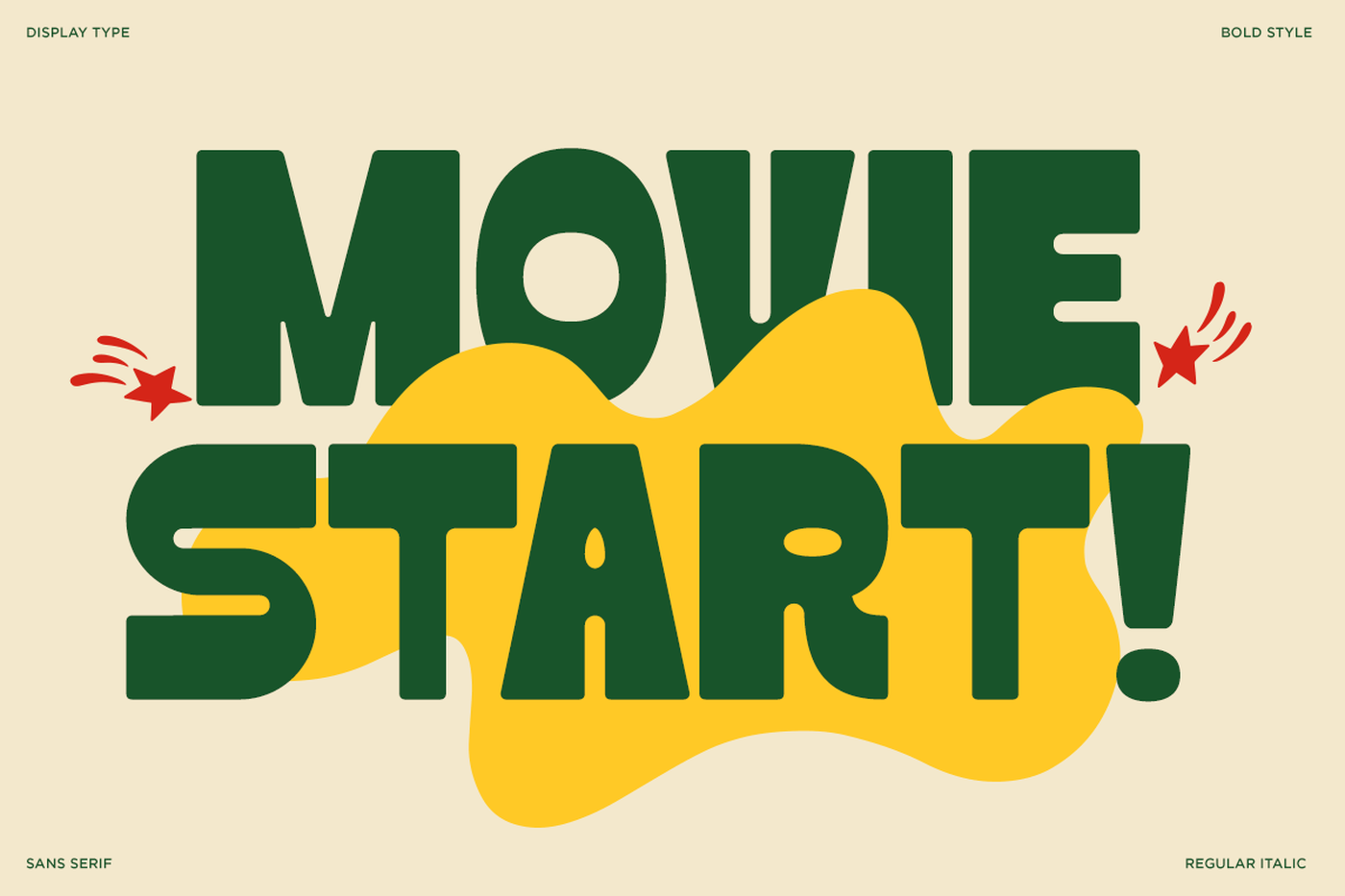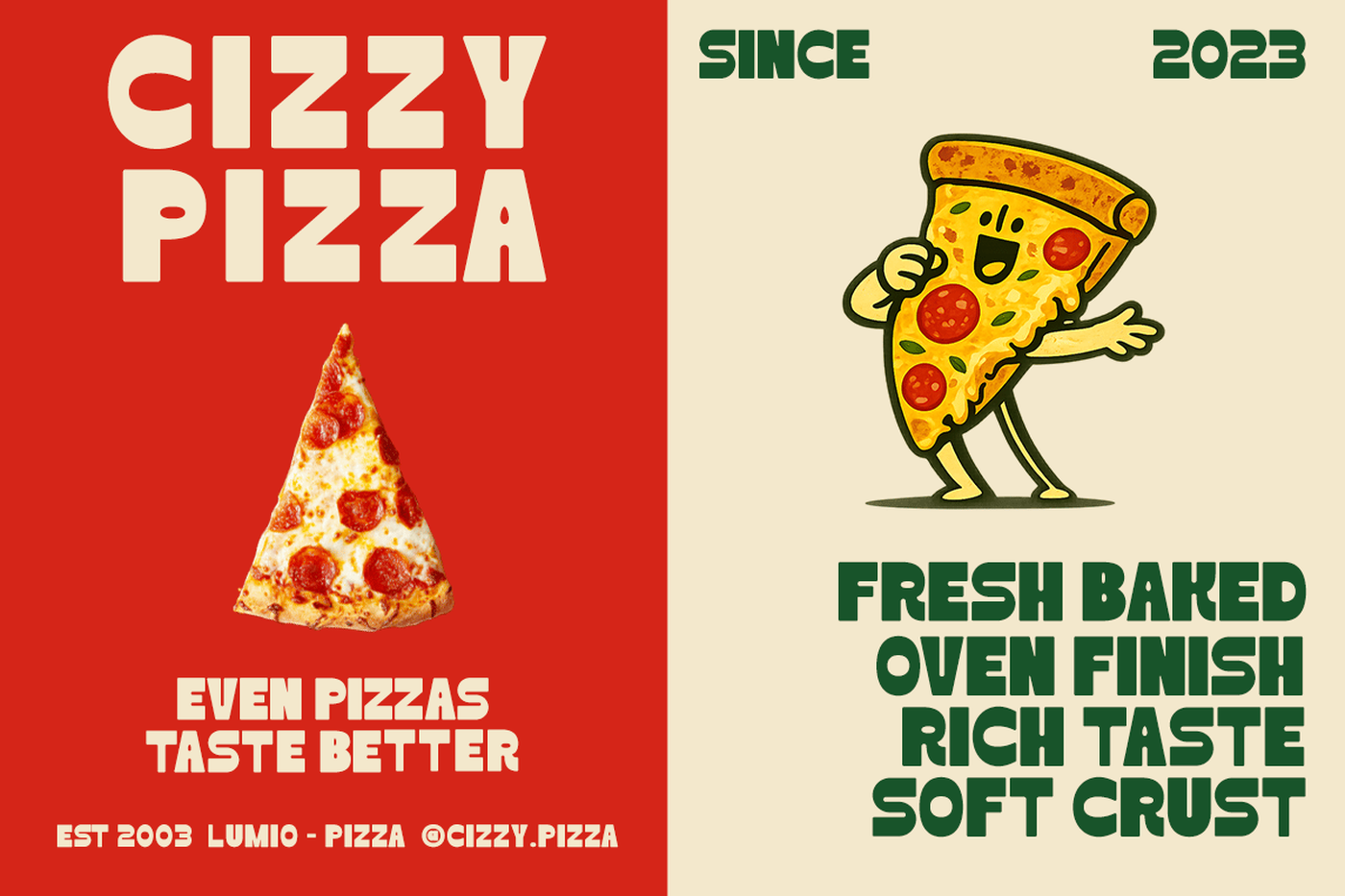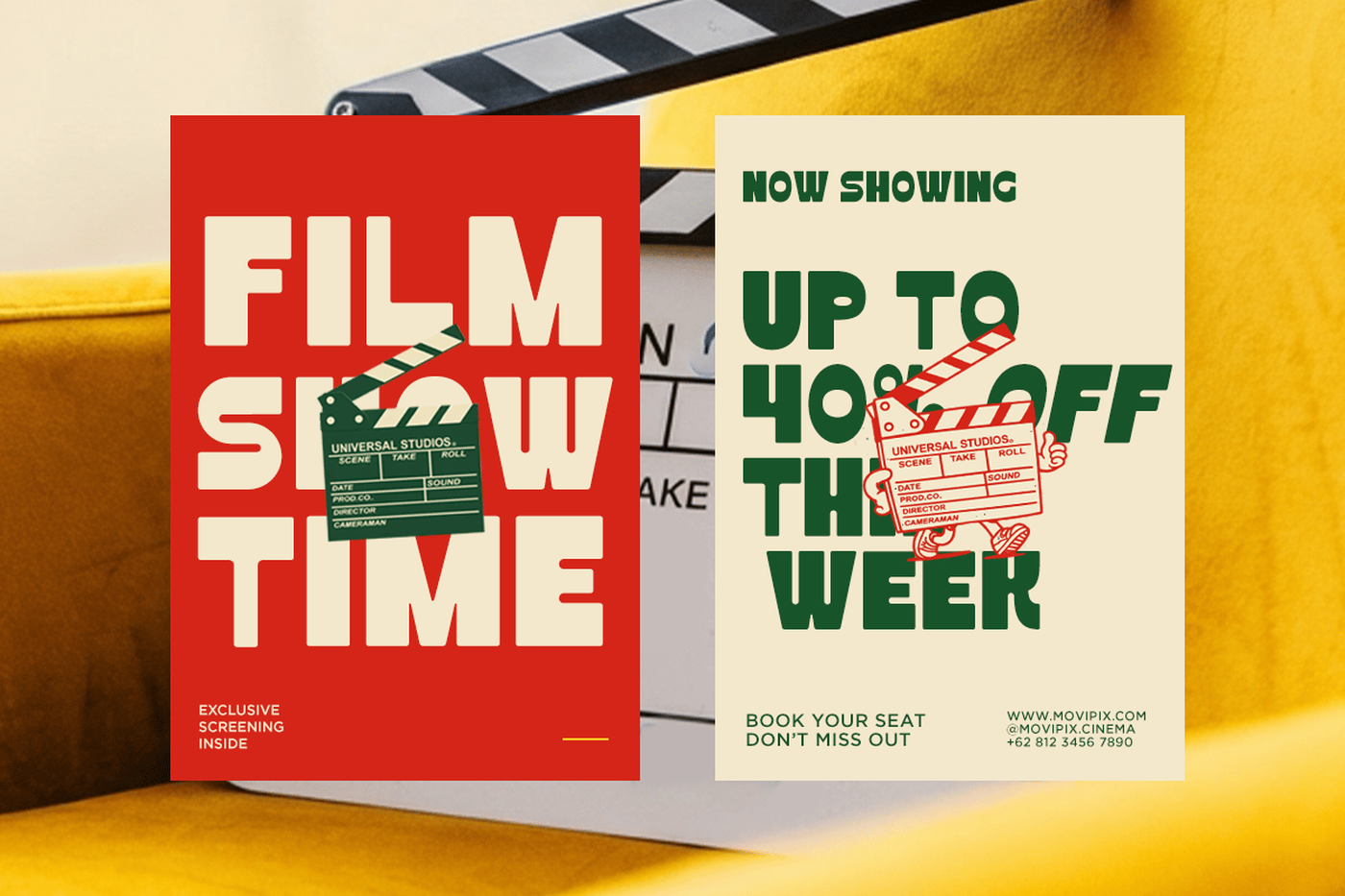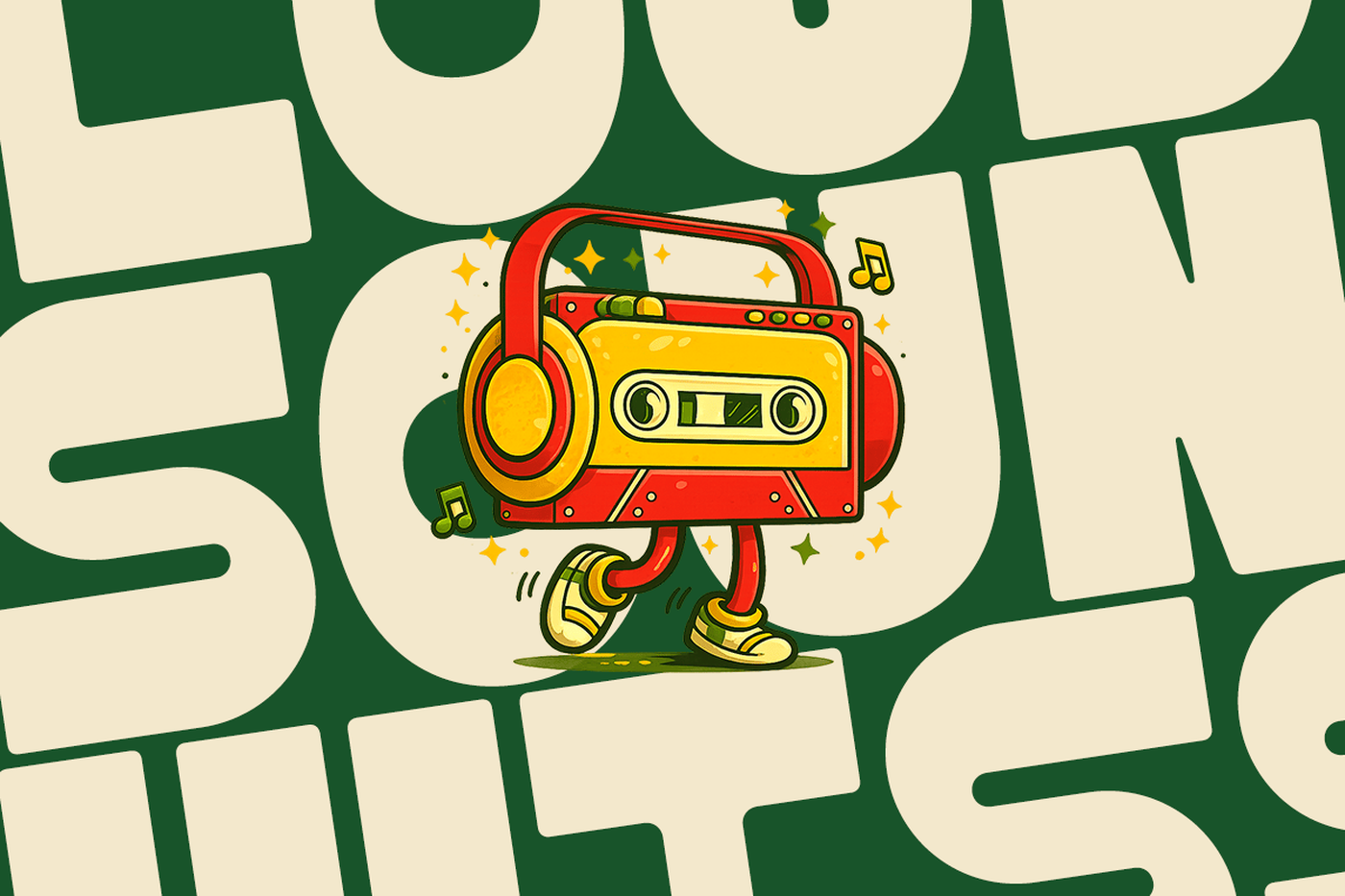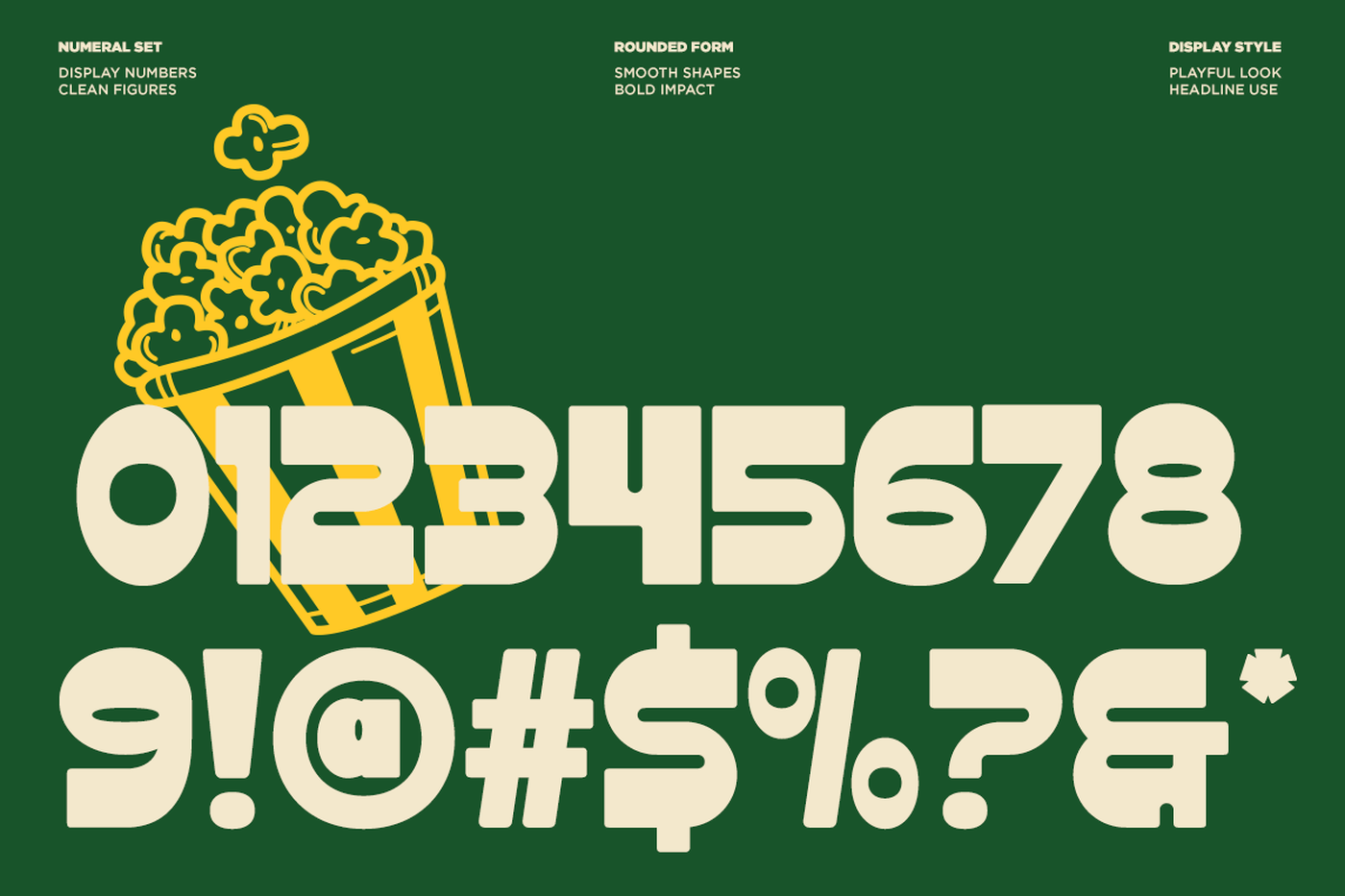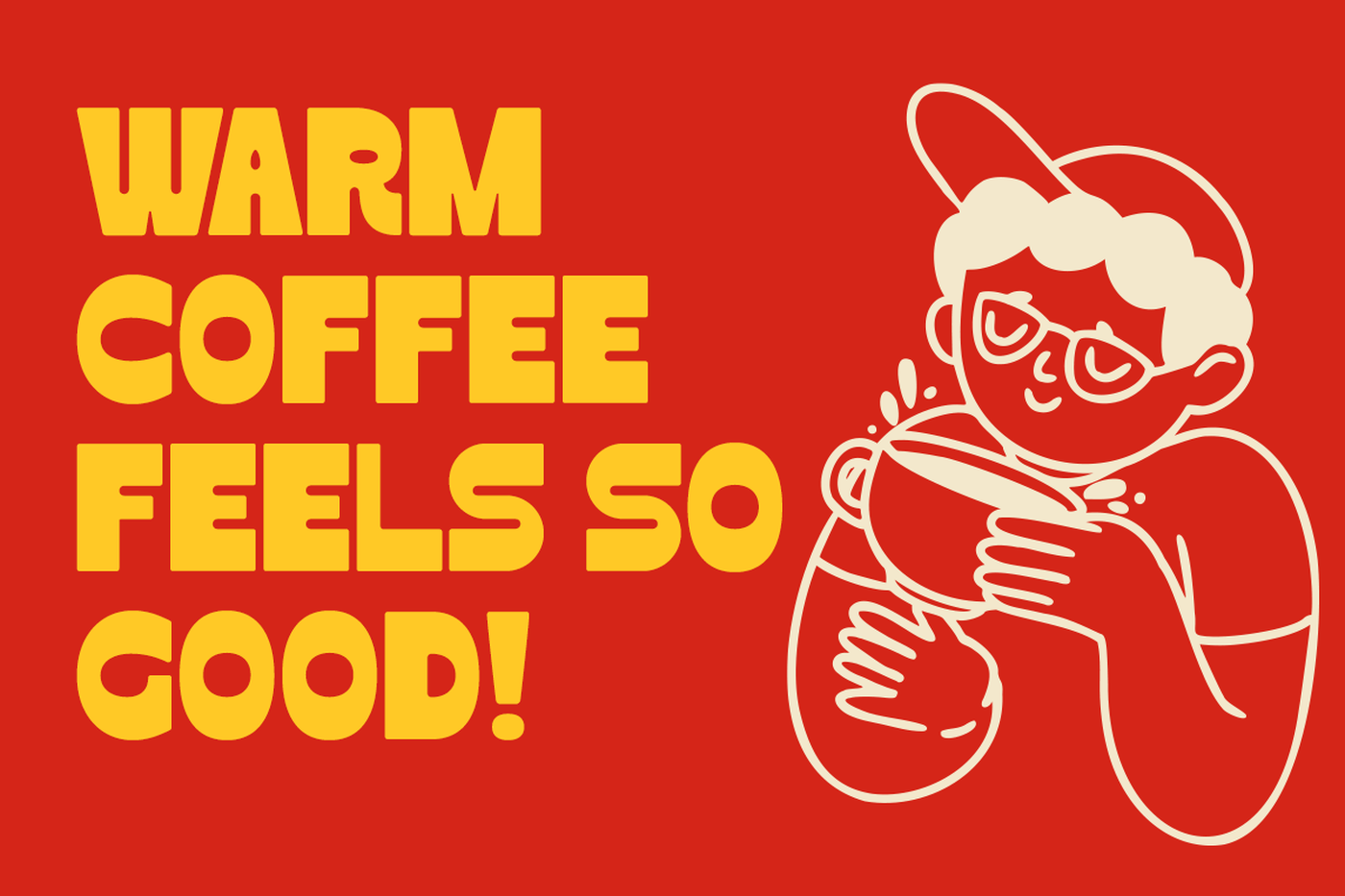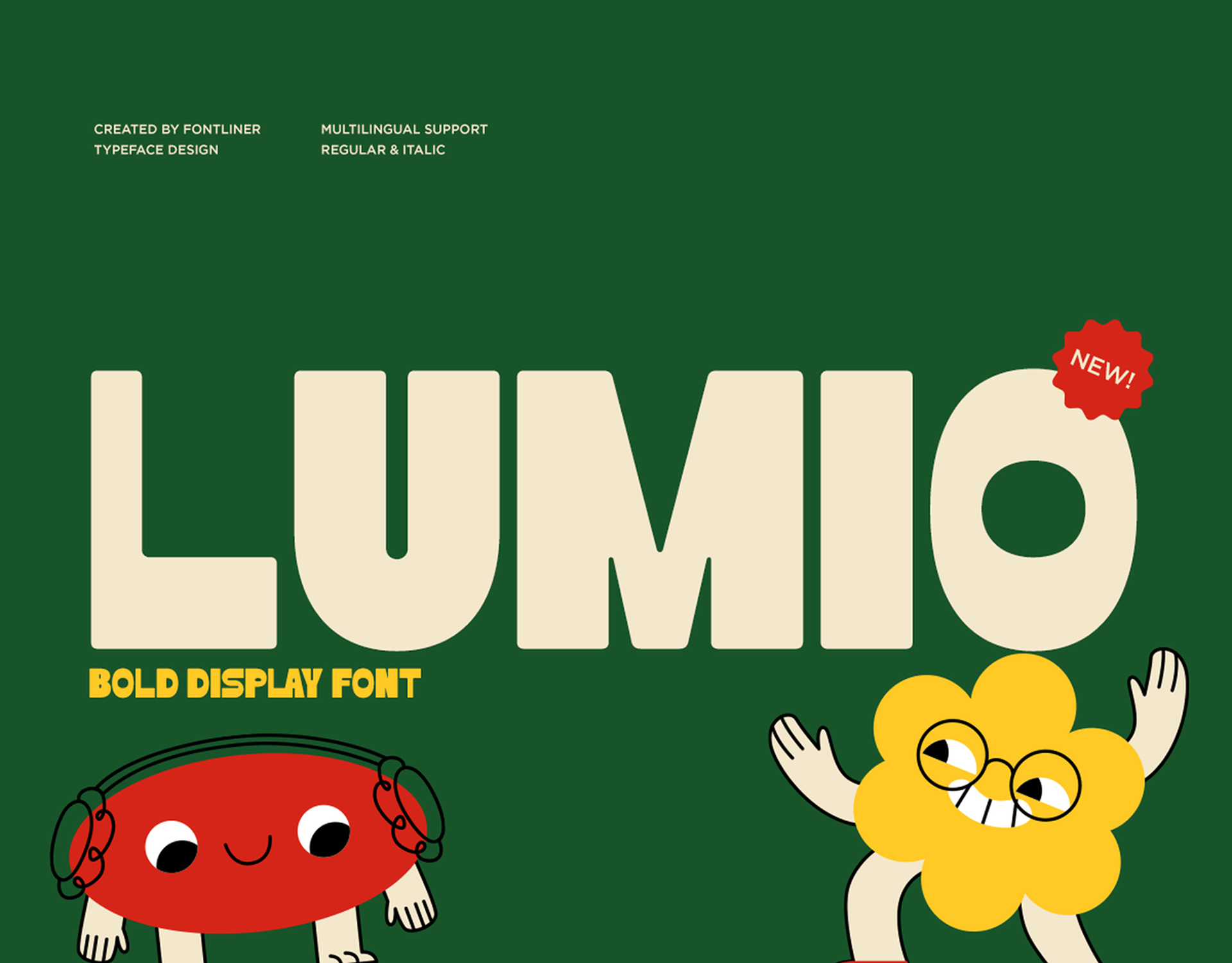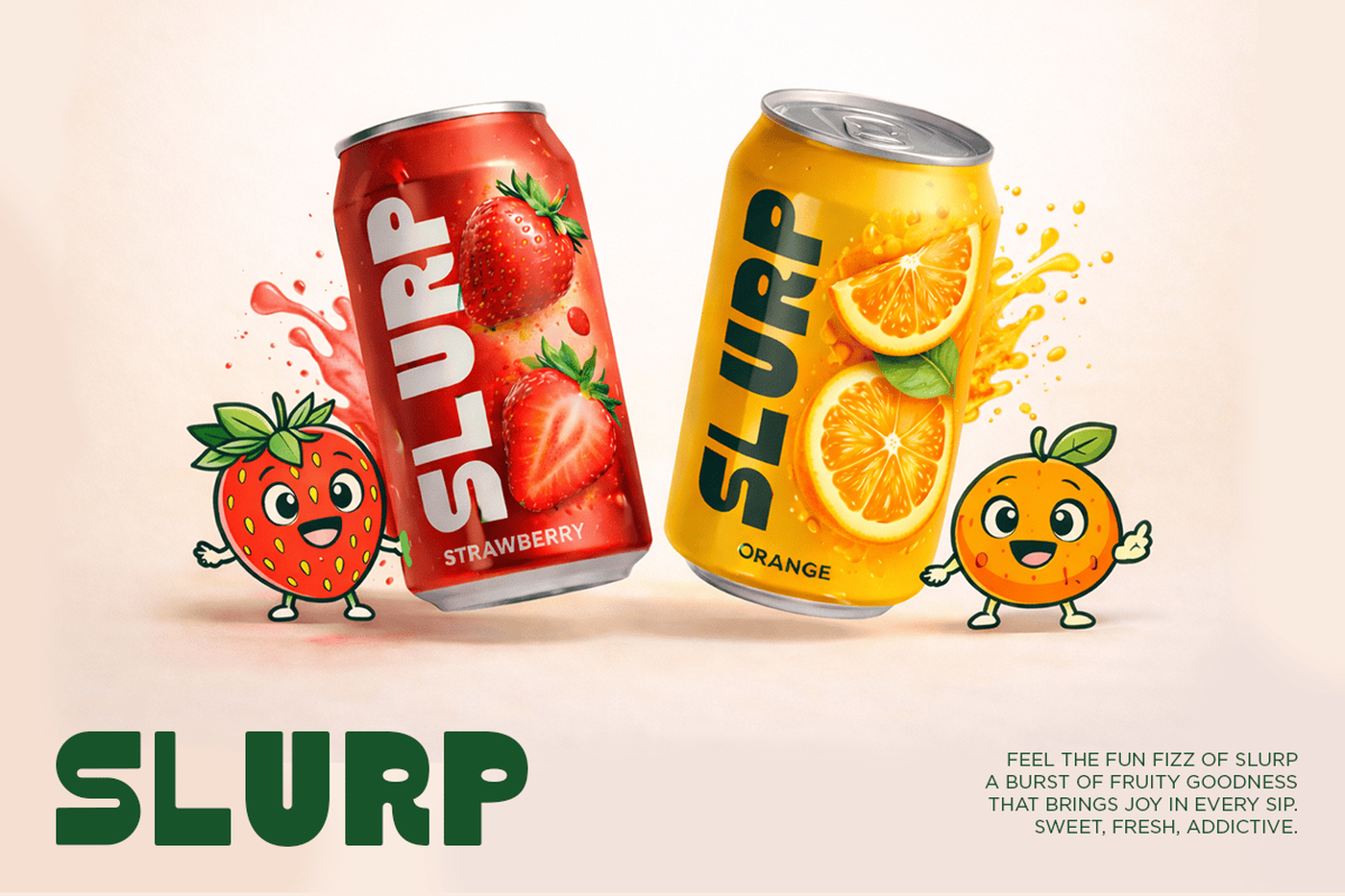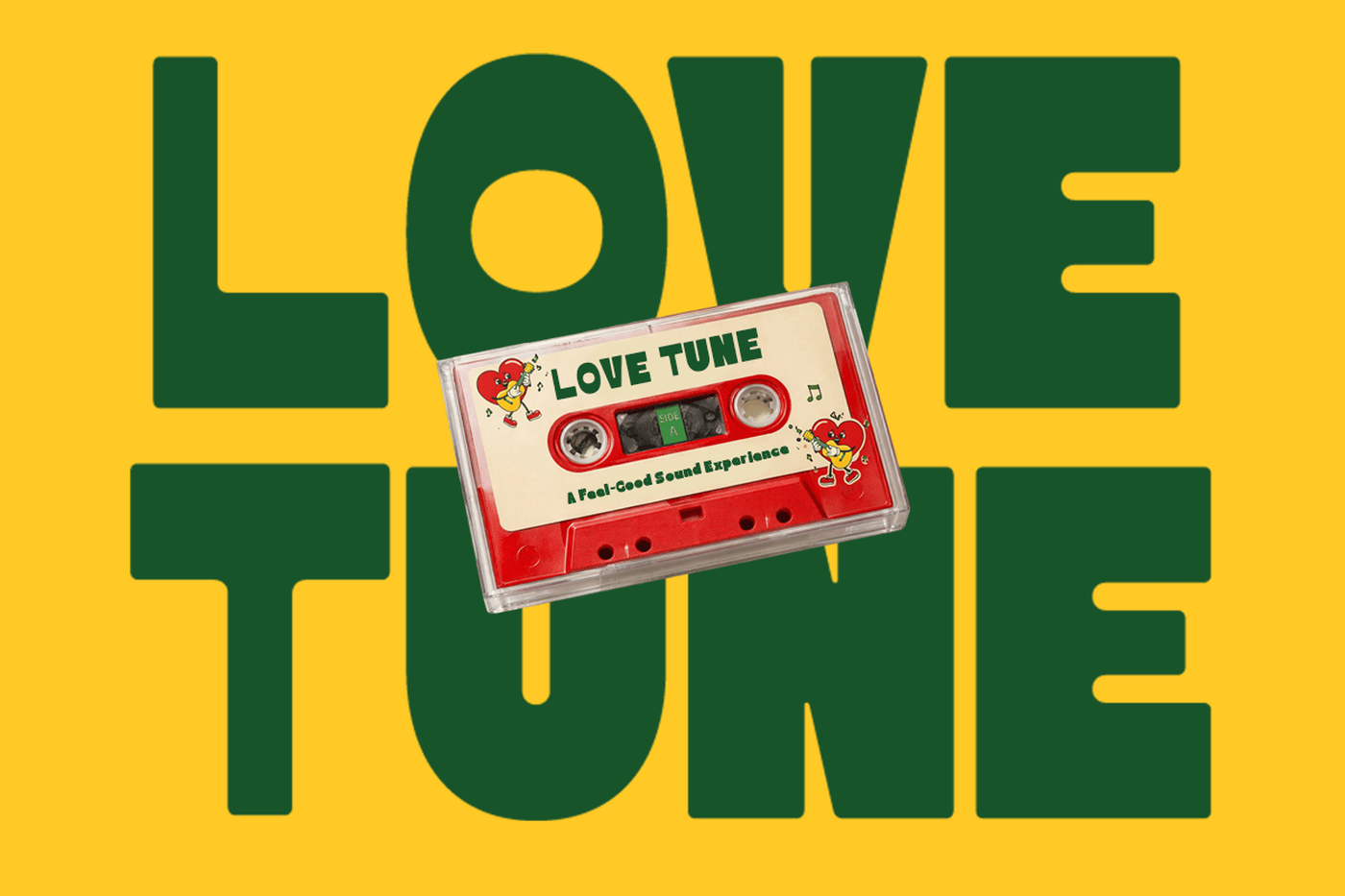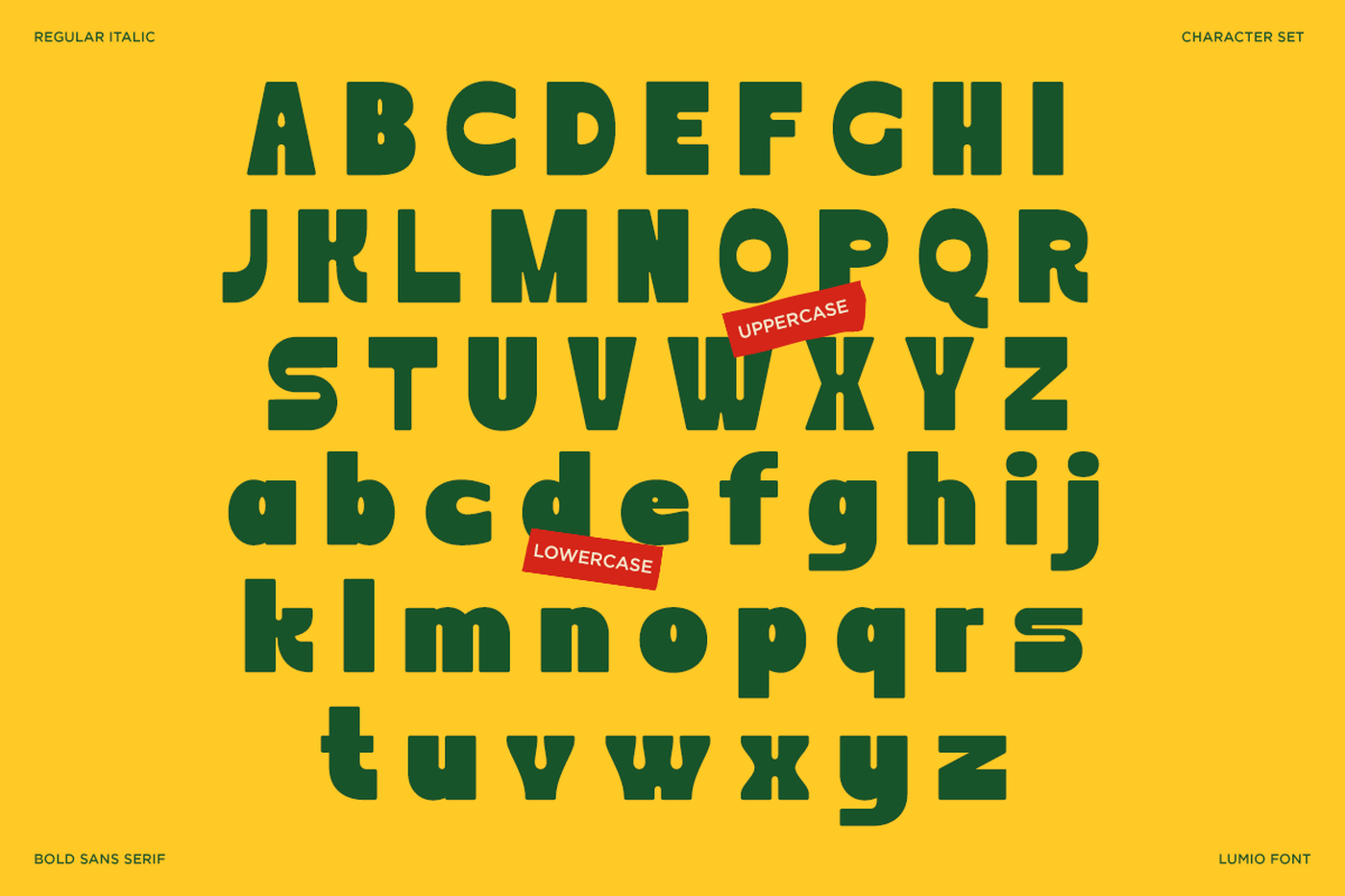
Lumio - Bold Display Font
Lumio is a bold display font designed to bring instant joy and visual impact to your creative projects. With its chunky letterforms, smooth curves, and playful proportions, this typeface captures a cheerful and friendly personality that stands out in any composition. Whether you're creating eye-catching headlines or fun branding visuals, LUMIO delivers strong readability with a lively twist. Inspired by modern cartoon aesthetics and vibrant children’s design trends, LUMIO works perfectly for projects that need energy and approachability. From kids branding, toy packaging, and educational materials to posters, social media graphics, and YouTube thumbnails, this font adds a warm and engaging tone that feels both contemporary and expressive.